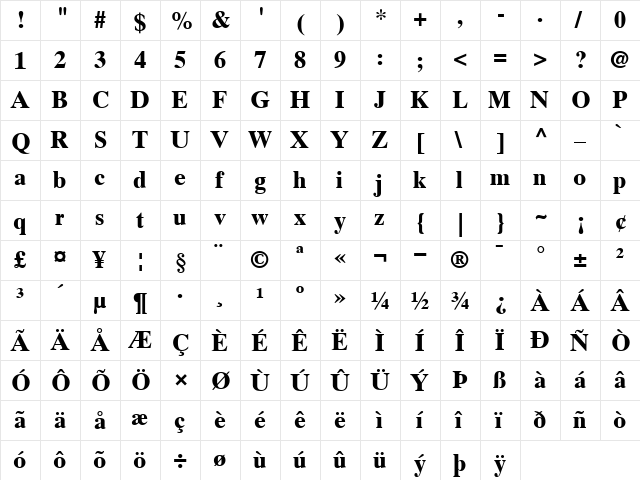
TimesTen Bold Font Preview
TimesTen Bold
Design Context for TimesTen Typeface
TimesTen takes a measured approach to typography — its balanced proportions and neutral character make it a reliable workhorse for both digital and print work. The heavy weight commands attention and anchors typographic hierarchies.